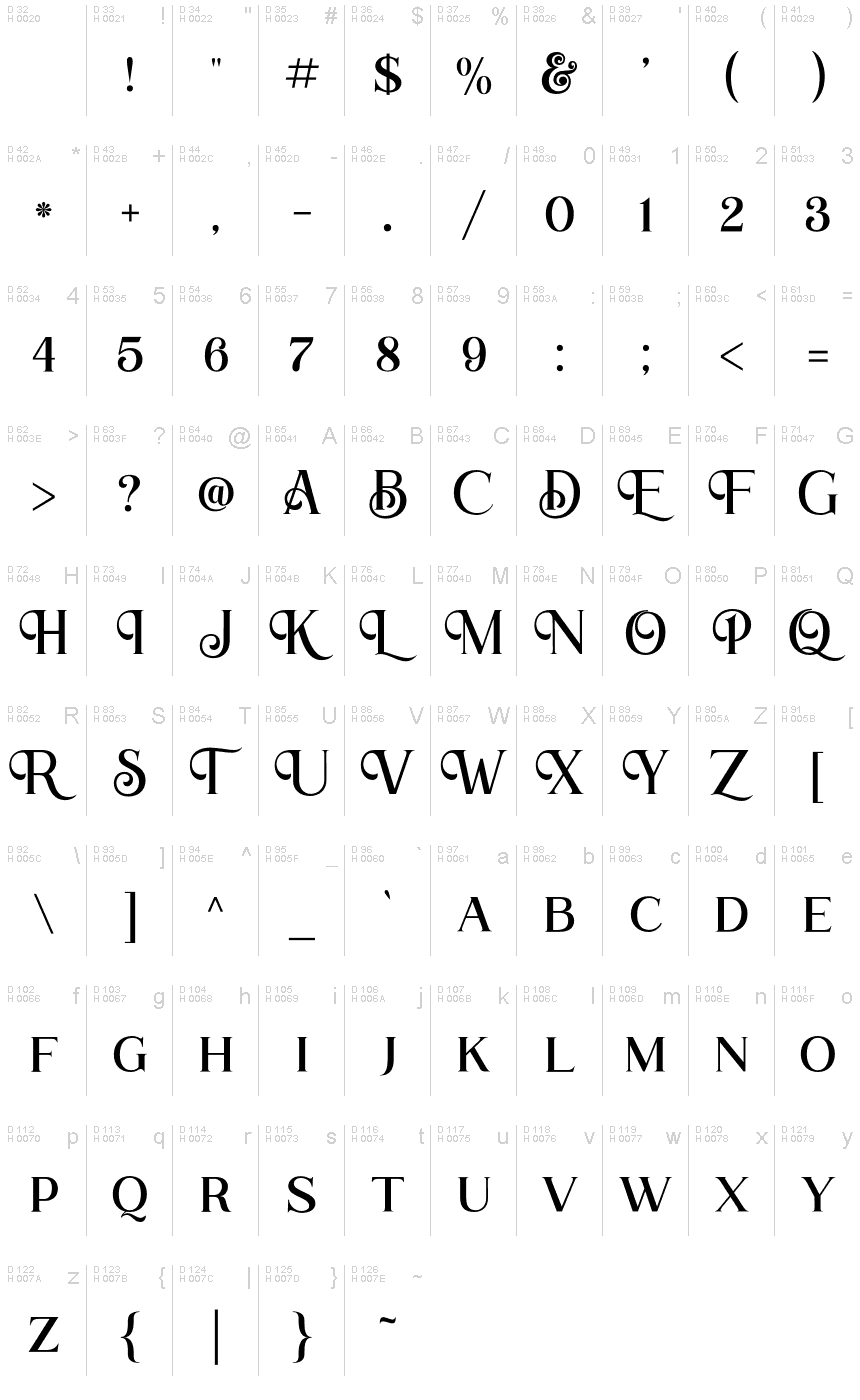
VeniceBridge
Venice Bridge is a captivating display font by Letterflow that brings retro elegance to any project. With its unique serif style and classic look, Venice Bridge is perfect for branding, packaging, editorial design, and more. This versatile typeface comes in various weights from light to semi-bold and can be paired with sans-serif fonts for a modern touch. The font's wide width adds personality and ensures readability even at smaller sizes. Whether you're designing a vintage-inspired logo or creating an eye-catching poster, Venice Bridge will make your project stand out with its timeless appeal.